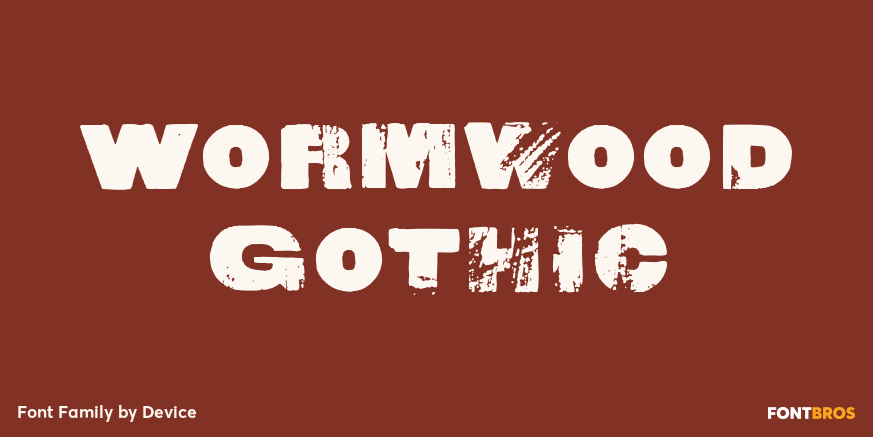
About Wormwood Gothic
Retaining all the imperfections and irregularities of wood type, Wormwood Gothic is a gothic sans with all the naive and uneven character shapes typical of the period. The ?capitals? feature extended characters, while the ?lower case ? features capitals…